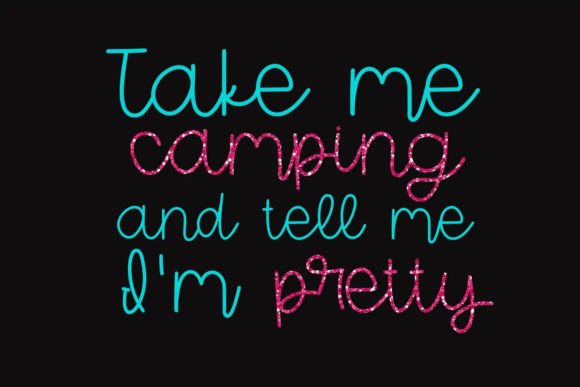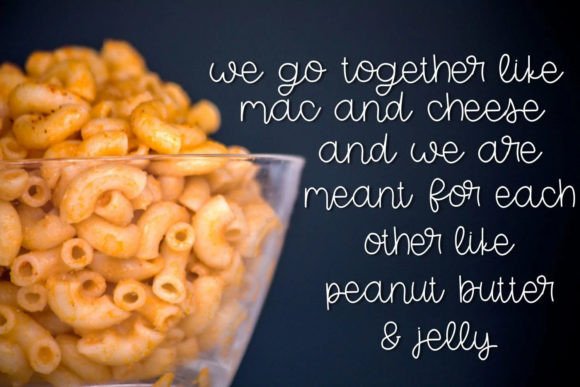
Introduction to Macaroni and Cheese Font
Introducing Macaroni and Cheese, a fun handwritten font.
Macaroni and Cheese is a monoline font that is usable for all sorts of projects Macaroni and Cheese can be used with cut machines and will look great on a variety of projects.
Key Features of Macaroni and Cheese Font
Why Choose Macaroni and Cheese Font?
Macaroni and Cheese Font offers exceptional quality and versatility, making it a valuable addition to your design toolkit. Whether you’re creating for personal projects or commercial use, Macaroni and Cheese Font delivers professional results.